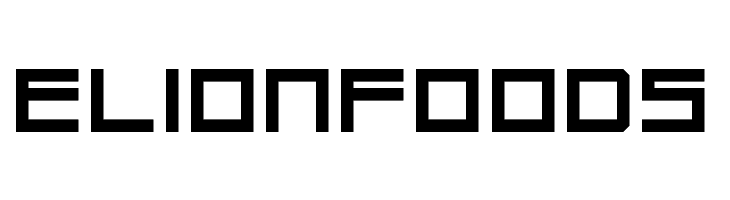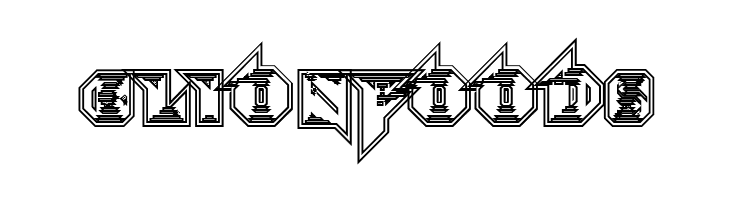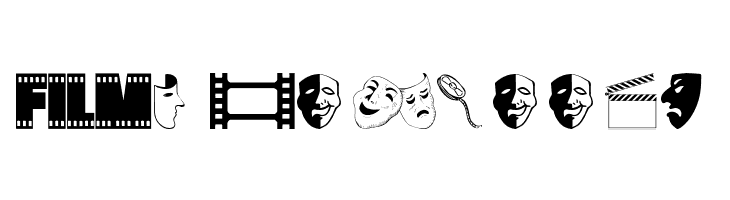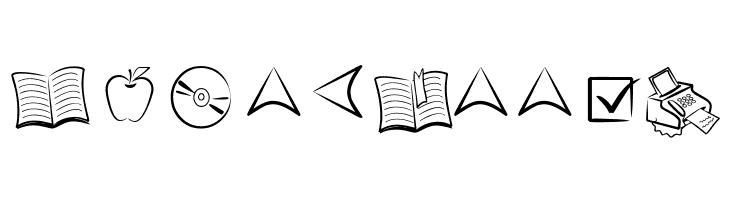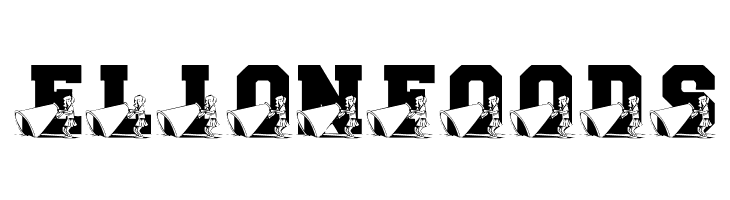
• Conform F.S. Regular
( Fonts by Bryson Stohr )
A bold, geometric font with a modern, blocky aesthetic.
• Webstar BV
( Fonts by Blue Vinyl - Jess Latham - www.bvfonts.com )
Hand-drawn icon dingbat font with a playful, sketchy style.
• Morbid Fixation
( Fonts by Omega Font Labs )
A bold, angular, and decorative font with a futuristic and aggressive style.
• wmdrama1
• LMS New Cheerleader
( London's Letters - www.londonsletters.com/ )
A playful font with cheerleader graphics and bold, uppercase letters.